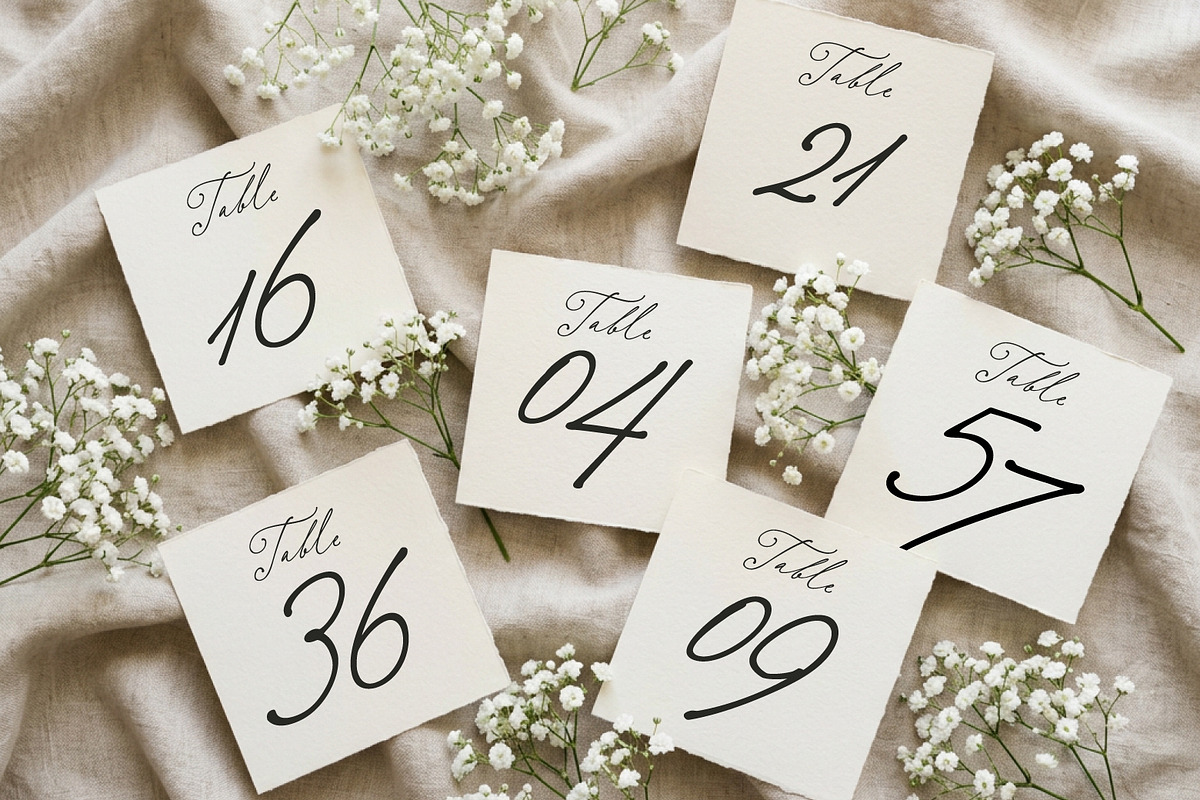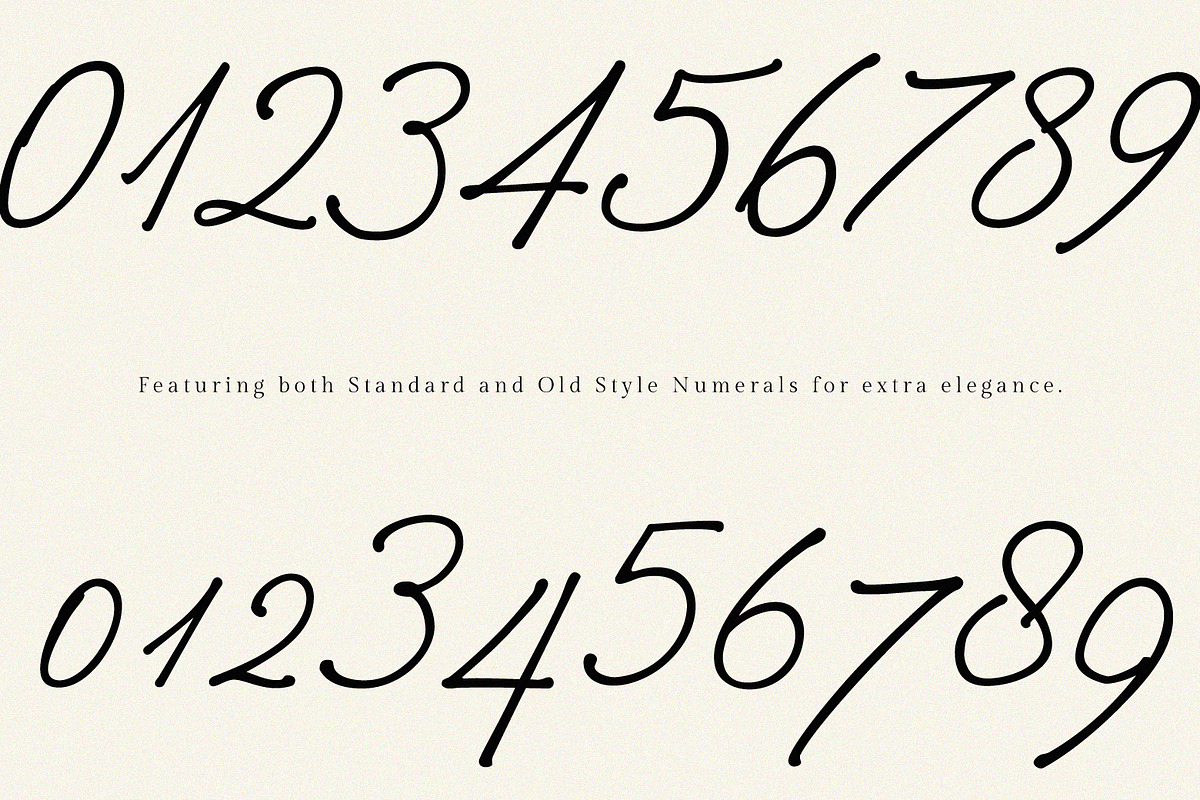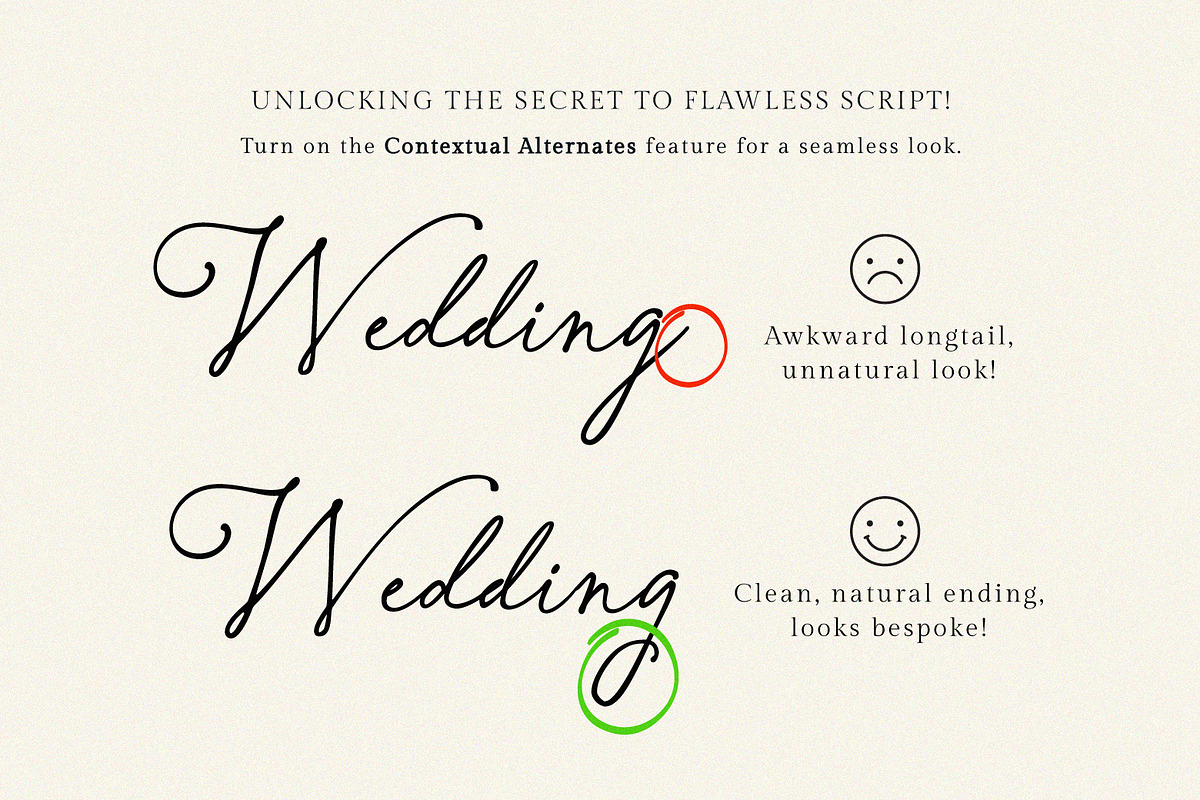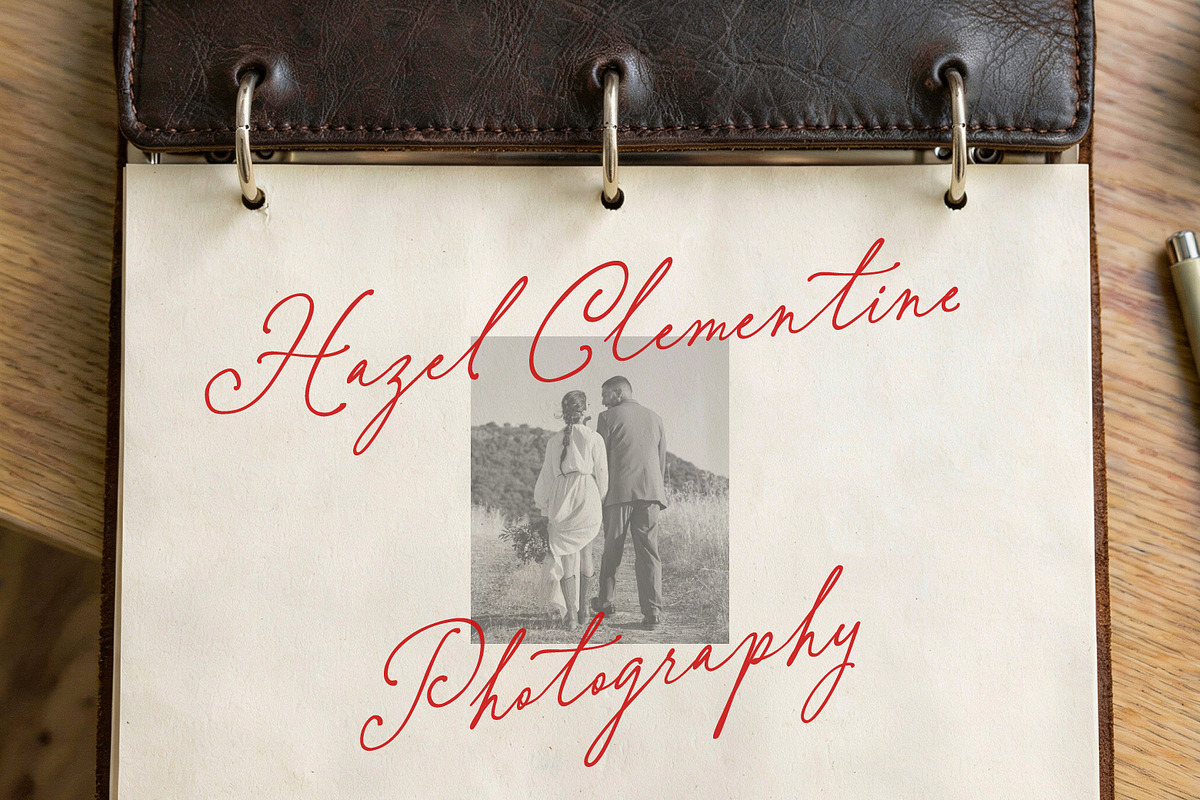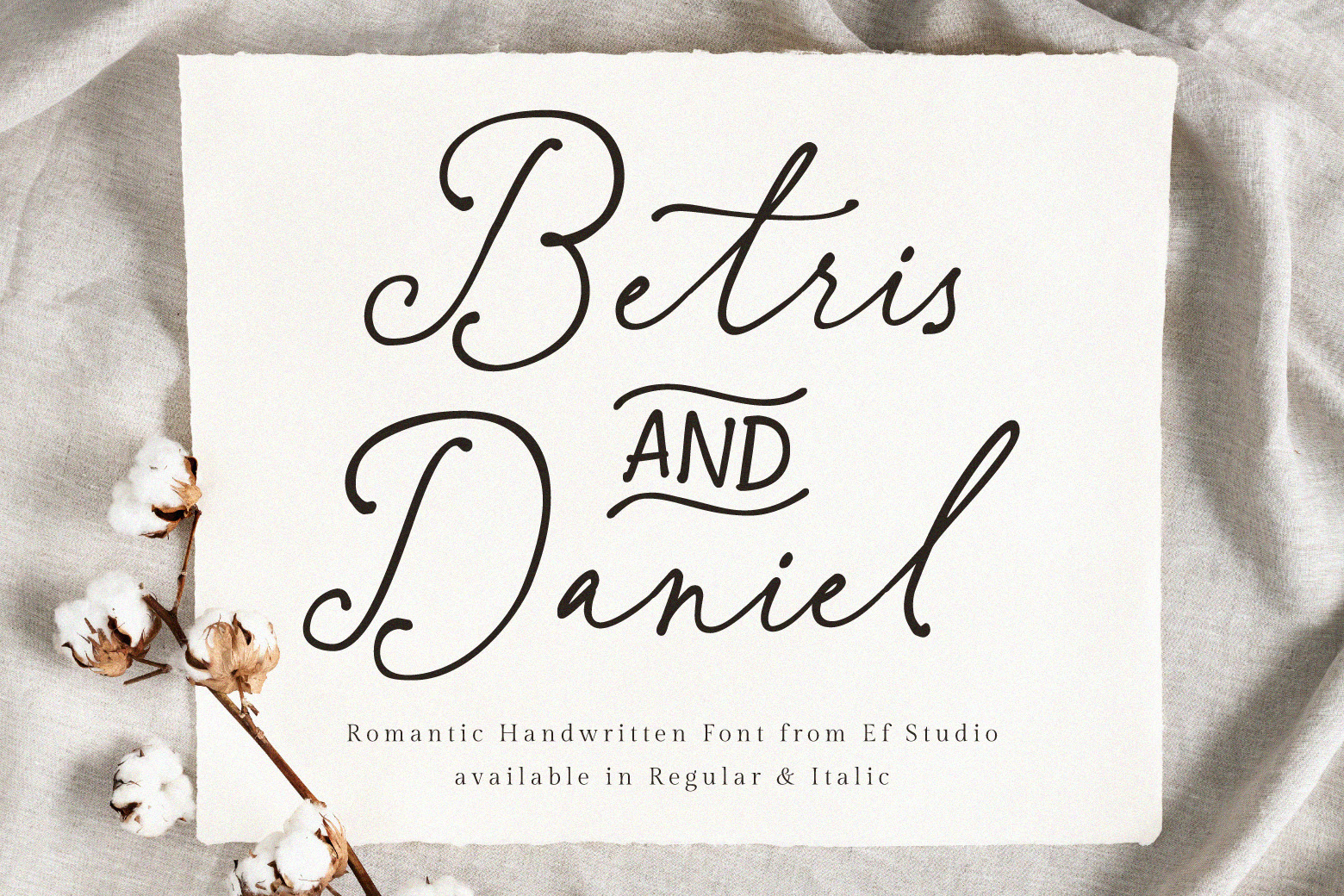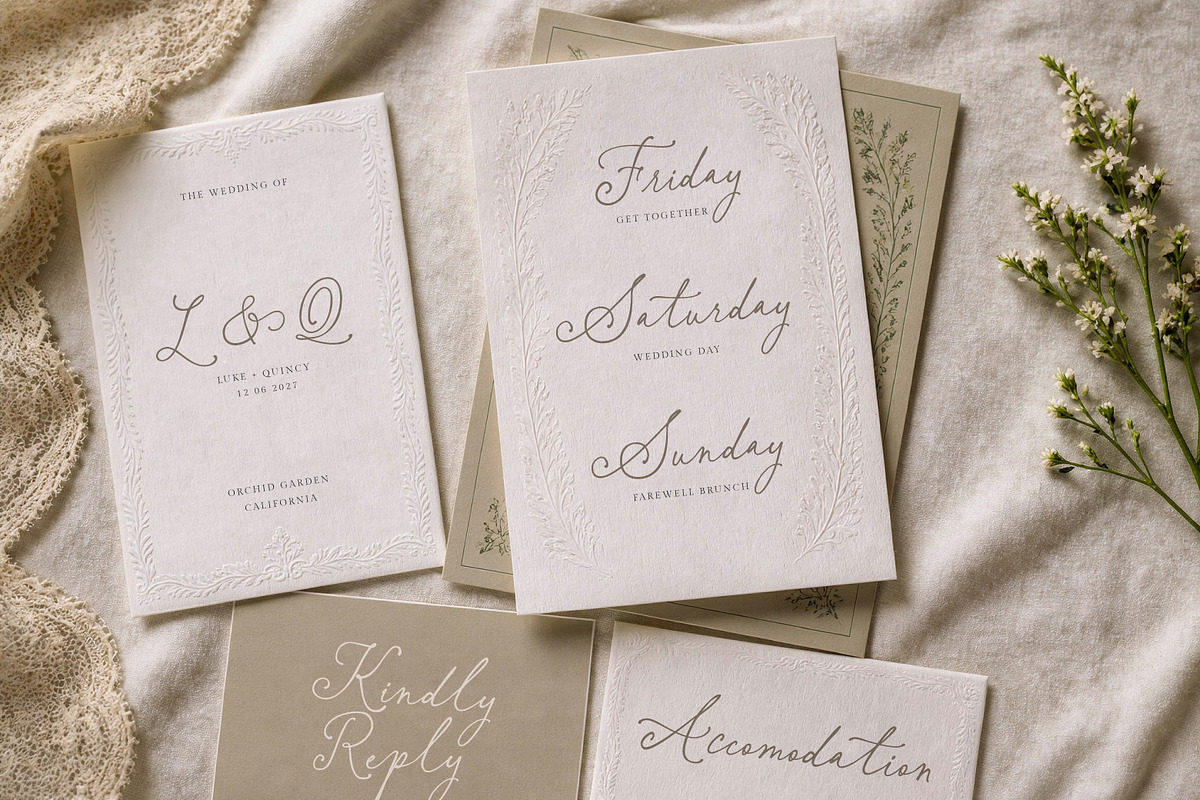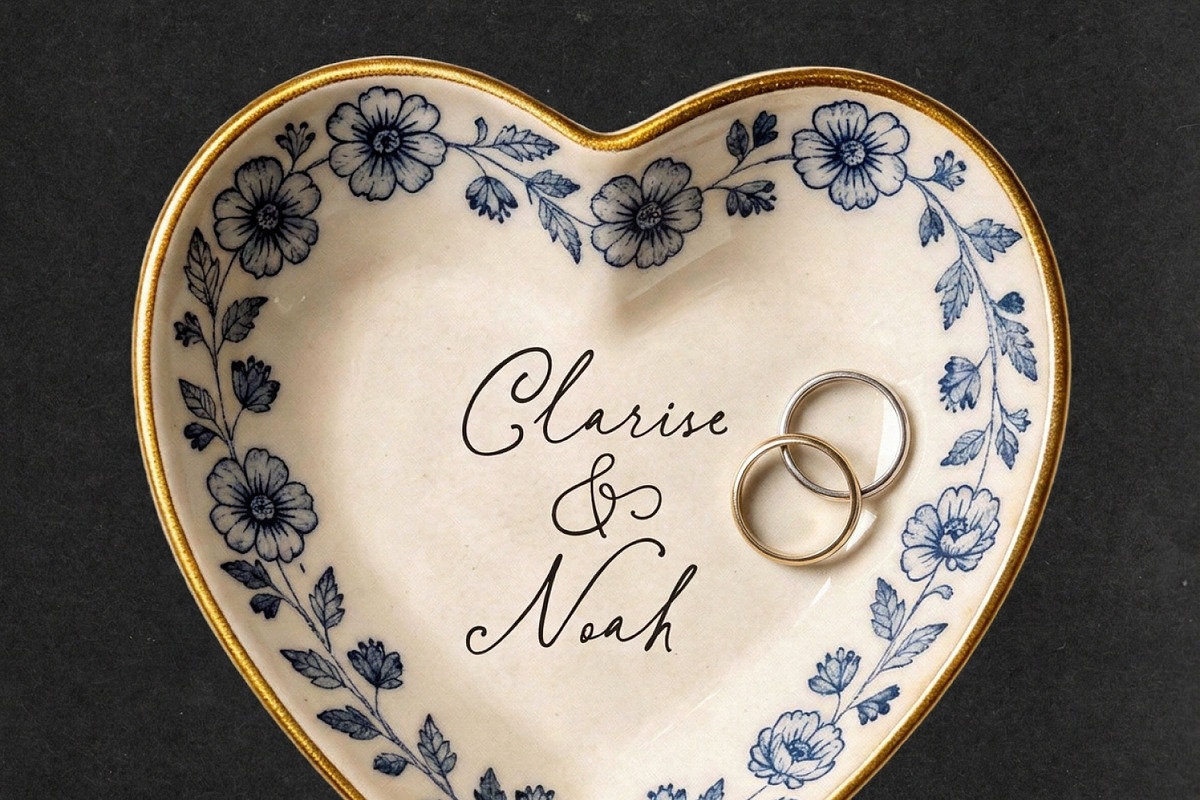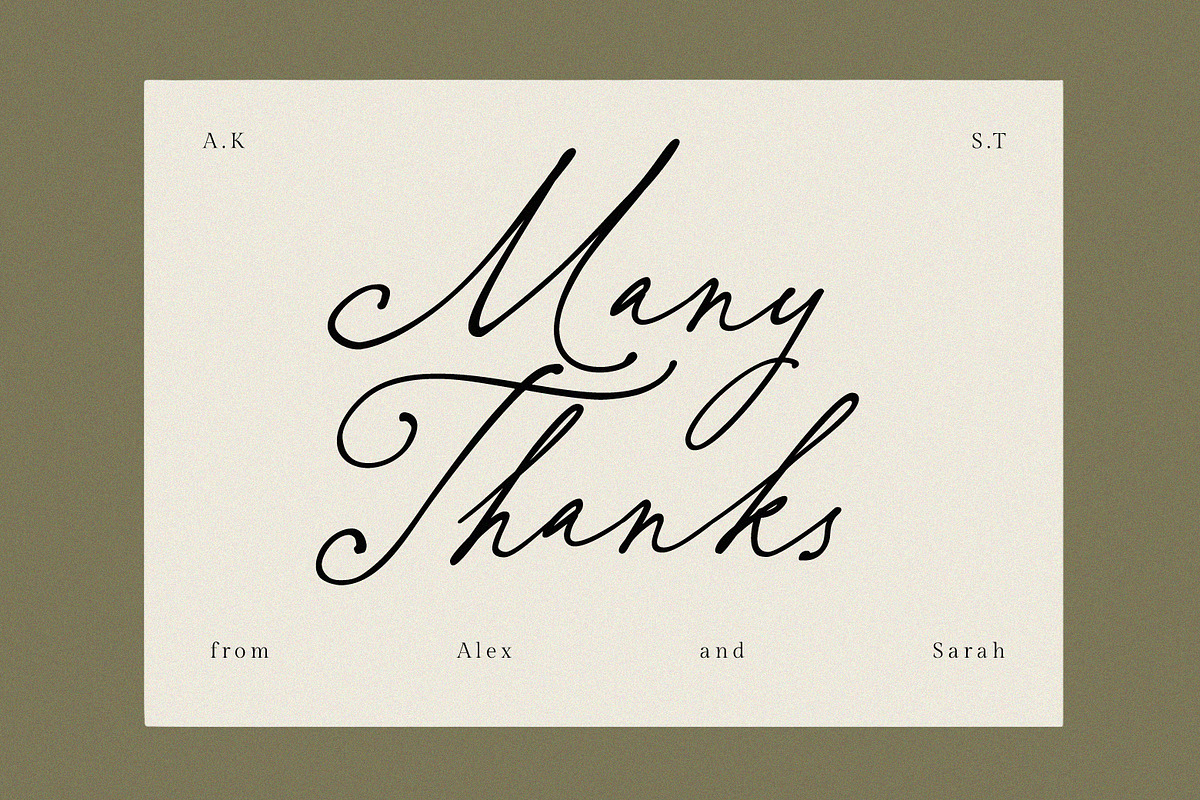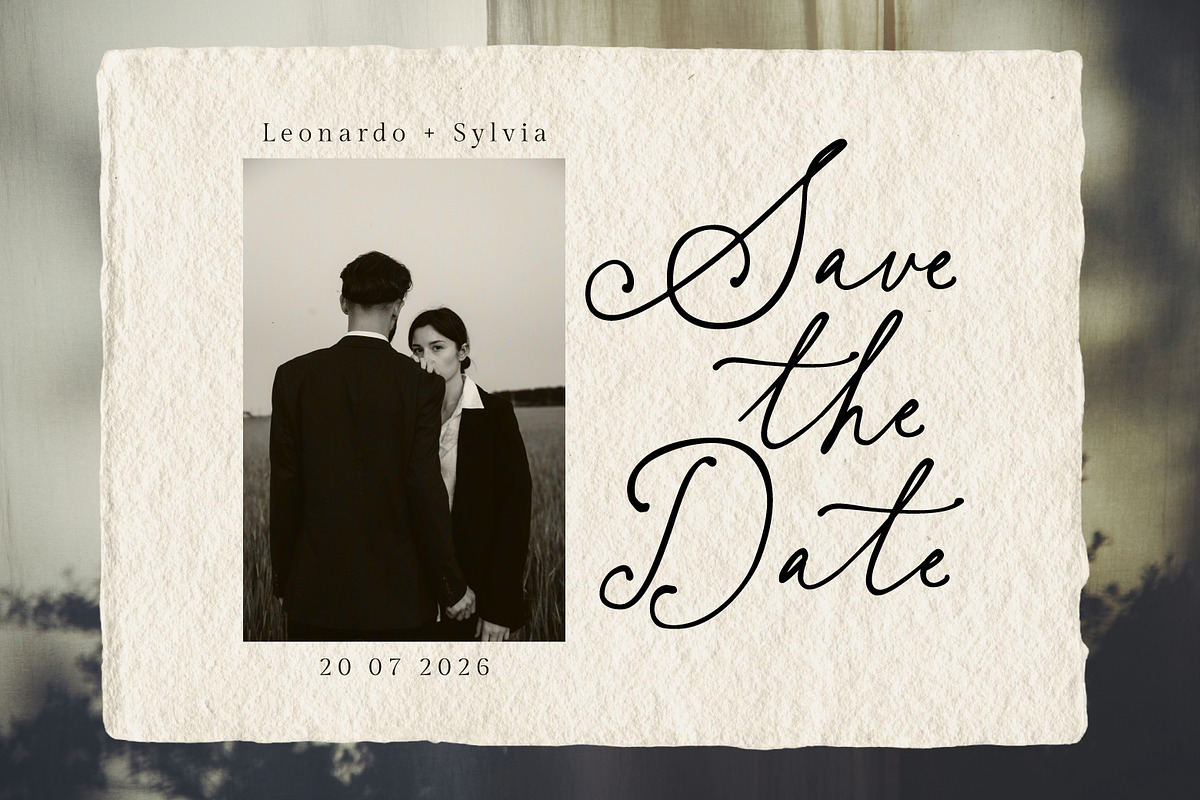
Betris & Daniel | Wedding Font
Betris and Daniel is a sophisticated and romantic handwritten font, meticulously crafted to bring a touch of personal charm and high-end aesthetics to your projects. With its fluid strokes and authentic calligraphy feel, this font is the perfect choice for wedding stationery, elegant branding, logos, social media quotes, and more. Available in Regular and Italic.
What makes Betris and Daniel truly stand out is its Smart Contextual Alternates. Say goodbye to rigid, robotic script endings! This font is "smart enough" to clean up its own tails. When turned on, it automatically detects the end of your words and replaces long, clumsy connectors with natural ending swashes for a flawless, authentic hand-written flow. It also features a comprehensive set of characters, including unique ligatures that mimic natural handwriting and two distinct styles of "and" connectivity (a graceful ampersand and a decorative catchword) to give your layouts a custom, hand-finished look.
Two Styles: Available in Regular and Italic to suit various design moods
Smart Contextual Alternates: Automatically cleans up word endings for a seamless, bespoke look
Comprehensive Ligatures: Includes special double-letter ligatures for a seamless, organic flow
Numeral Options: Features both Standard Numerals and Old Style Numerals, perfect for classic and elegant wedding dates
Special Catchwords: Includes a unique Decorative "AND" and a stylish Ampersand
Full Language Support: Multilingual characters included
Wedding Invitations & Stationery, Luxury Branding & Logos, Romantic Greeting Cards, Editorial Design & Magazines, Social Media Graphics with a personal touch